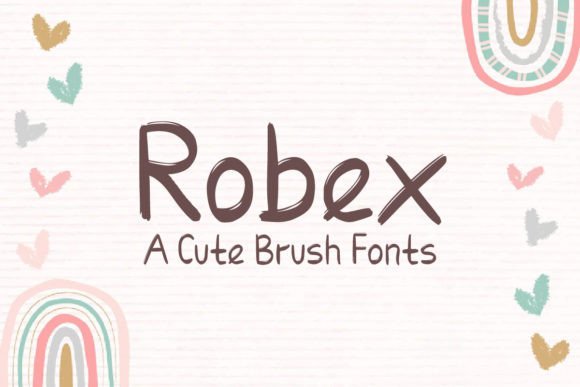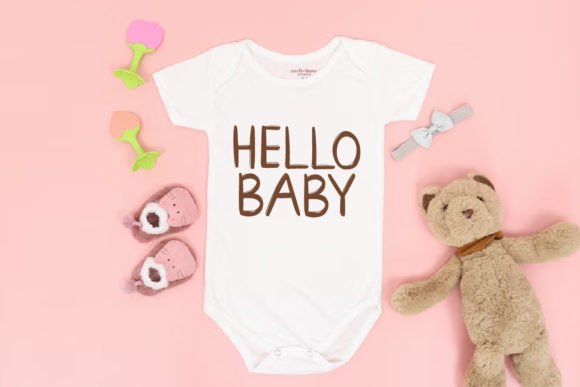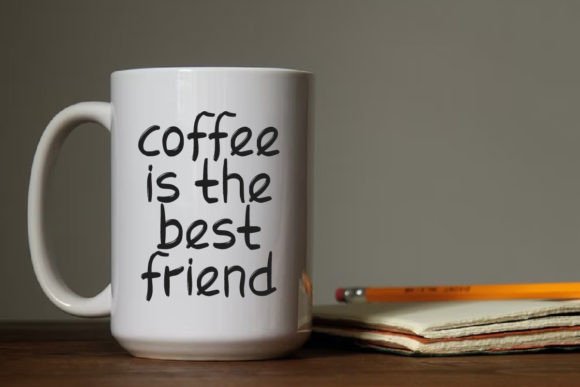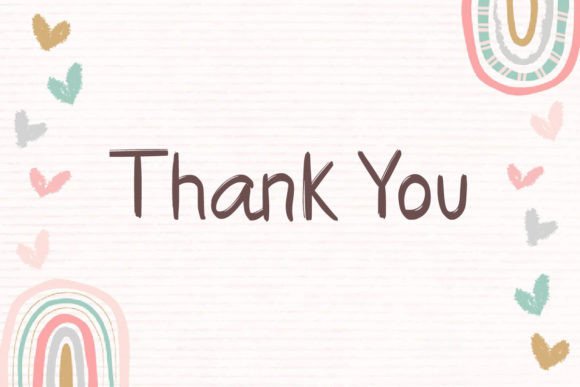
Robex Font
About Robex Font
Robex is a delightful brush font that exudes charm and versatility. Embrace the cuteness of this typeface as it becomes a fantastic choice for a broad spectrum of design projects. From posters and covers to sublimation projects, fabric prints, cards, and beyond, Robex proves to be a dynamic font that adapts seamlessly to various creative endeavors.
The charm of Robex is immediately apparent, adding a playful and endearing quality to your designs. Its brush strokes contribute to a dynamic and handmade aesthetic, making it suitable for projects that require a touch of character and personality.
The versatility of Robex is a standout feature, allowing it to be applied across different design applications. Whether you’re working on eye-catching posters, engaging covers, vibrant sublimation projects, or intricate fabric prints, Robex lends itself effortlessly to your creative vision.
The adaptability of Robex extends to card designs, where its charming qualities can enhance the overall appeal of invitations, greeting cards, or any other printed materials. The font’s ability to convey a sense of warmth and friendliness makes it a versatile choice for creating connections with your audience.
In summary, Robex is not just a font; it’s a charming design asset that adds a playful touch to your projects. Enjoy the versatility of this cute typeface as it becomes the perfect companion for a wide range of design endeavors, bringing character and creativity to every piece you create.